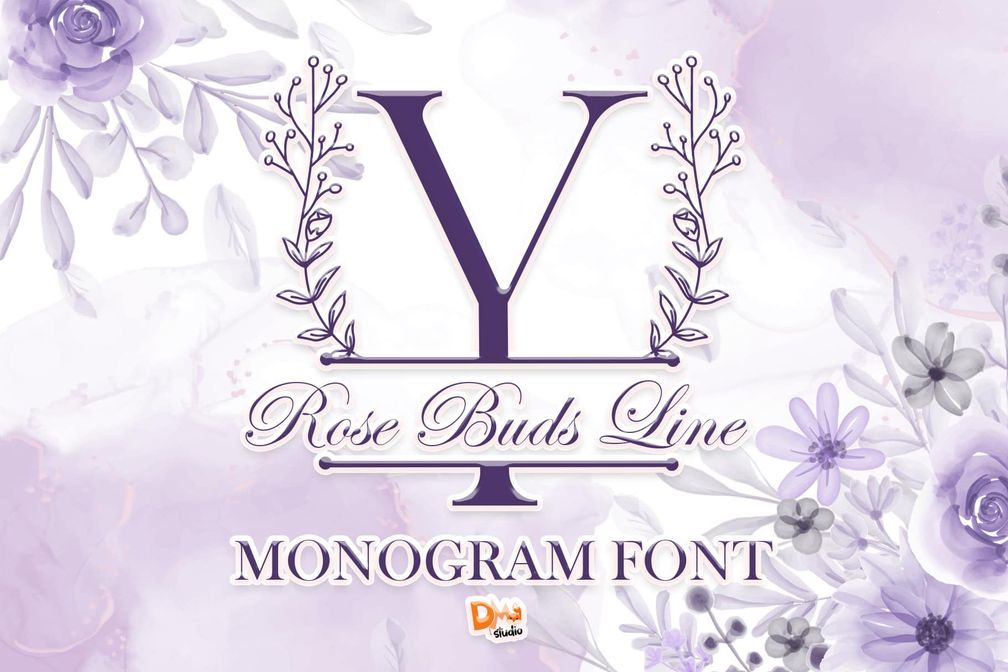
Rose Buds Line Monogram
Rose Buds Line Monogram – Elegant & Floral Monogram Font
Rose Buds Line Monogram is a beautifully crafted monogram font featuring delicate rose bud line art integrated into each letter. This sophisticated and decorative typeface is perfect for wedding invitations, luxury branding, personalized stationery, boutique packaging, and artistic projects. Its intricate floral details bring a timeless elegance to any design.
• Intricate Rose Bud Design: Each letter is adorned with delicate hand-drawn rose bud line art.
• Perfect for Elegant & Luxury Projects: Ideal for wedding stationery, branding, personalized gifts, and upscale packaging.
• Timeless & Ornamental Aesthetic: A refined blend of classic monogram style and floral elegance.